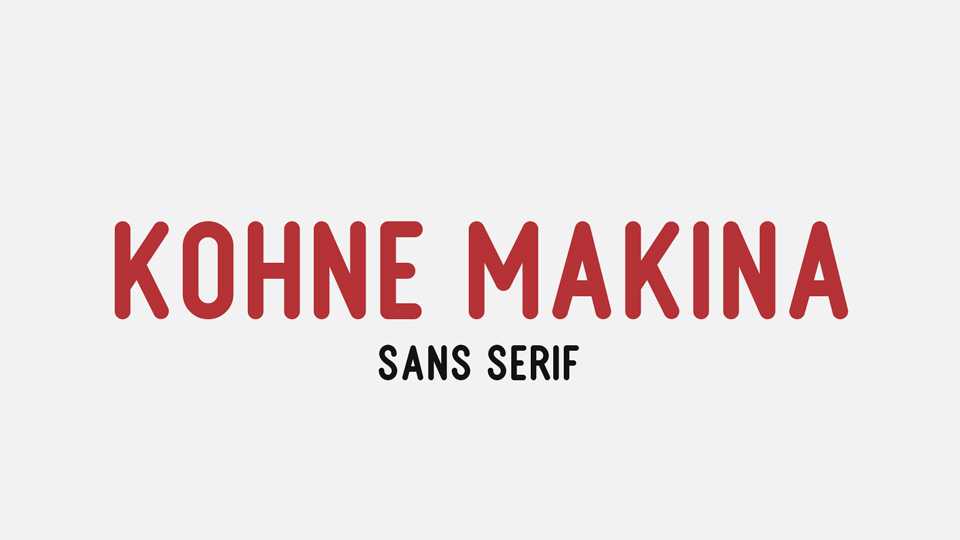
Download Kohne Makina font, a simple and clean all caps display sans. It’s suitable for posters, headlines, short messages, social media, banners and more.
Designer: Krafti Lab